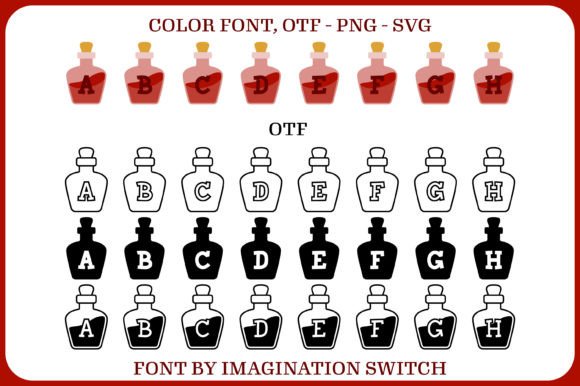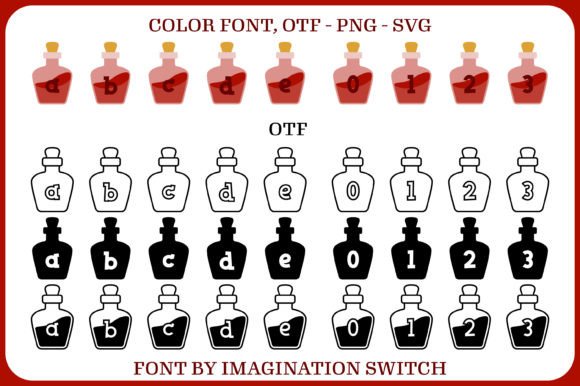
Introduction to Red Potion Font
The moment you’re about to unveil a new design concept, everything falls into place. The colors, the typography, the overall aesthetic – it all comes together to create an unforgettable experience for your audience. One crucial element that often gets overlooked is the font, but not today. Today, we’re diving into the captivating world of the Red Potion Font, a design resource that’s about to elevate your creative project to new heights.
As a designer, you’re always on the lookout for high-quality fonts that can make your message stand out. With its excellent legibility and visually appealing presentation, the Red Potion Font is an ideal choice for any project. Whether you’re working on a print design, a web design, or promotional materials, this font is sure to make a lasting impression.
Key Features of Red Potion Font
- High-quality design resource ideal for creative projects, offering a unique and eye-catching aesthetic.
Honest Review: Red Potion Font
As a designer, I’m always on the lookout for high-quality design resources that can elevate my creative projects. I recently had the chance to try out the Red Potion Font, and here’s my honest review.
- Unique and playful design: The Red Potion Font has a distinctive and quirky feel that’s perfect for adding some personality to your design work.
- High-quality glyphs: The font includes a wide range of characters, including punctuation and symbols, making it a great choice for a variety of creative projects.
- Limited font styles: While the font has a unique design, it’s only available in a single style, which may limit its versatility in certain design contexts.
Overall, the Red Potion Font is a great addition to any designer’s toolkit. While it may have some limitations, its unique design and high-quality glyphs make it a valuable resource for creative projects. If you’re looking for a free design resource that can add some personality to your work, the Red Potion Font is definitely worth checking out.
The Red Potion Font is suitable for a variety of creative projects, including digital art, graphic design, and typography. Use the font to add a touch of elegance and sophistication to your designs. The font’s high-quality design makes it perfect for use in logos, branding, and marketing materials.